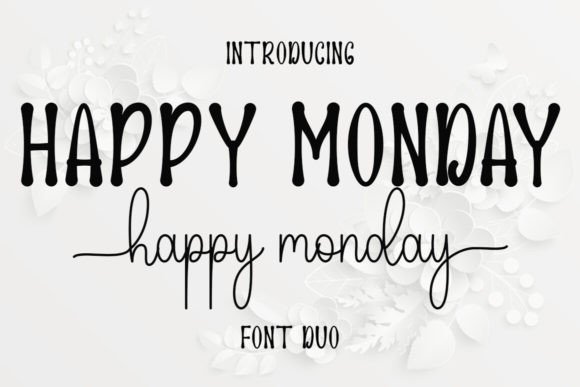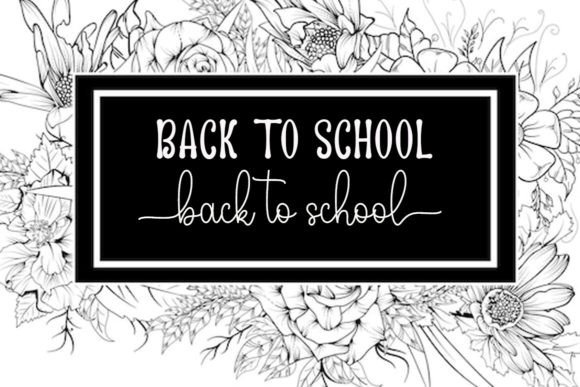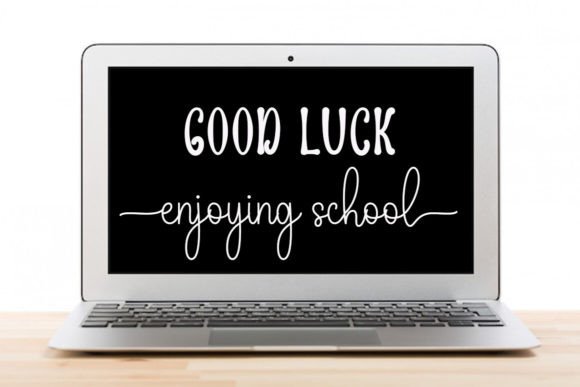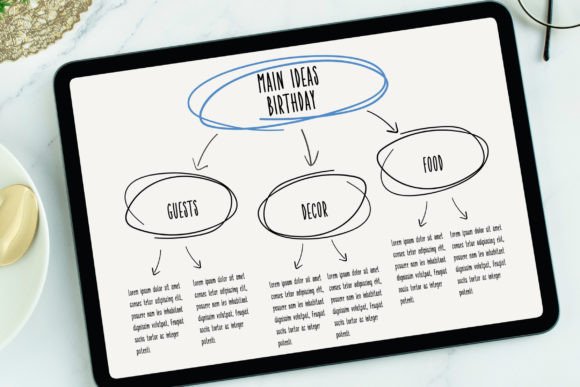
Happy Monday Font
About the Happy Monday Font
Experience the unique personality of Happy Monday Font, a font designed for impact. Introducing “Happy Monday” a font designed to kickstart your week with super-narrow elegance. This unique handwritten font boasts an exceptionally narrow width, allowing you to efficiently record a substantial amount of content while maintaining a well-organized appearance. Tailored for students and teachers alike, it’s perfect for various applications such as note-taking, digital planners, traditional planners, journals, educational notes, Goodnotes, greeting cards, quotes, handwritten notes, branding, and more. With “Happy Monday” you can infuse your weekdays with a touch of streamlined style, making each project an organized and visually pleasing endeavor.
Happy Monday Font Usage Examples
Happy Monday Font Example